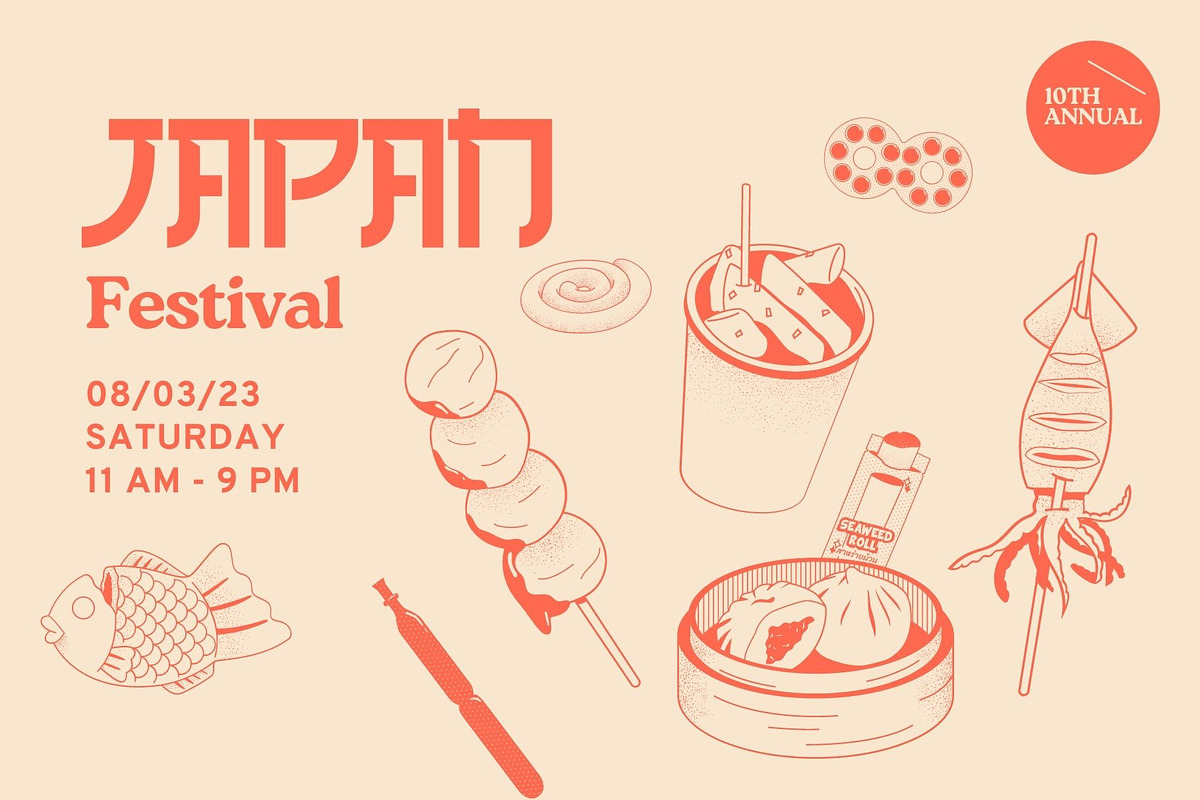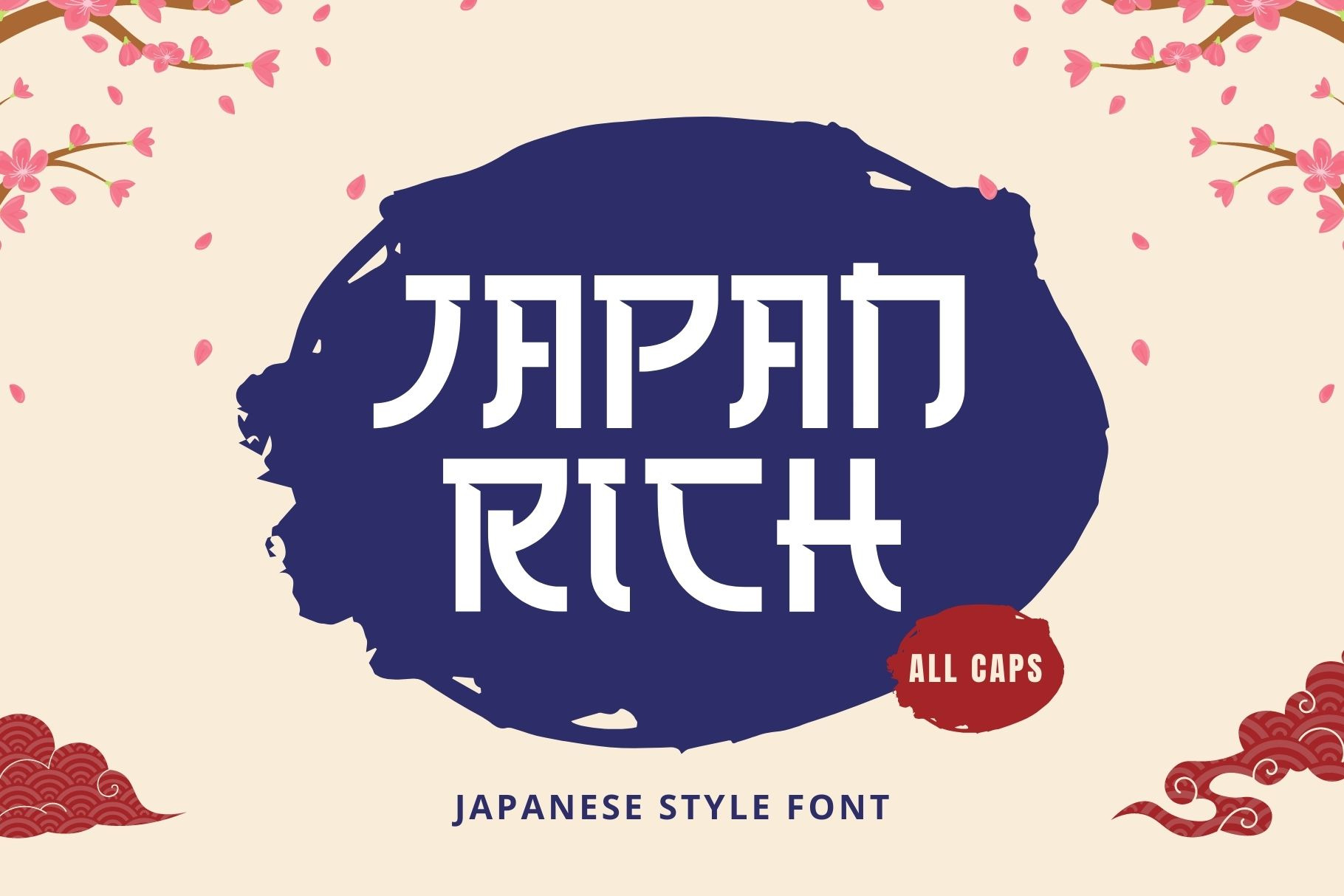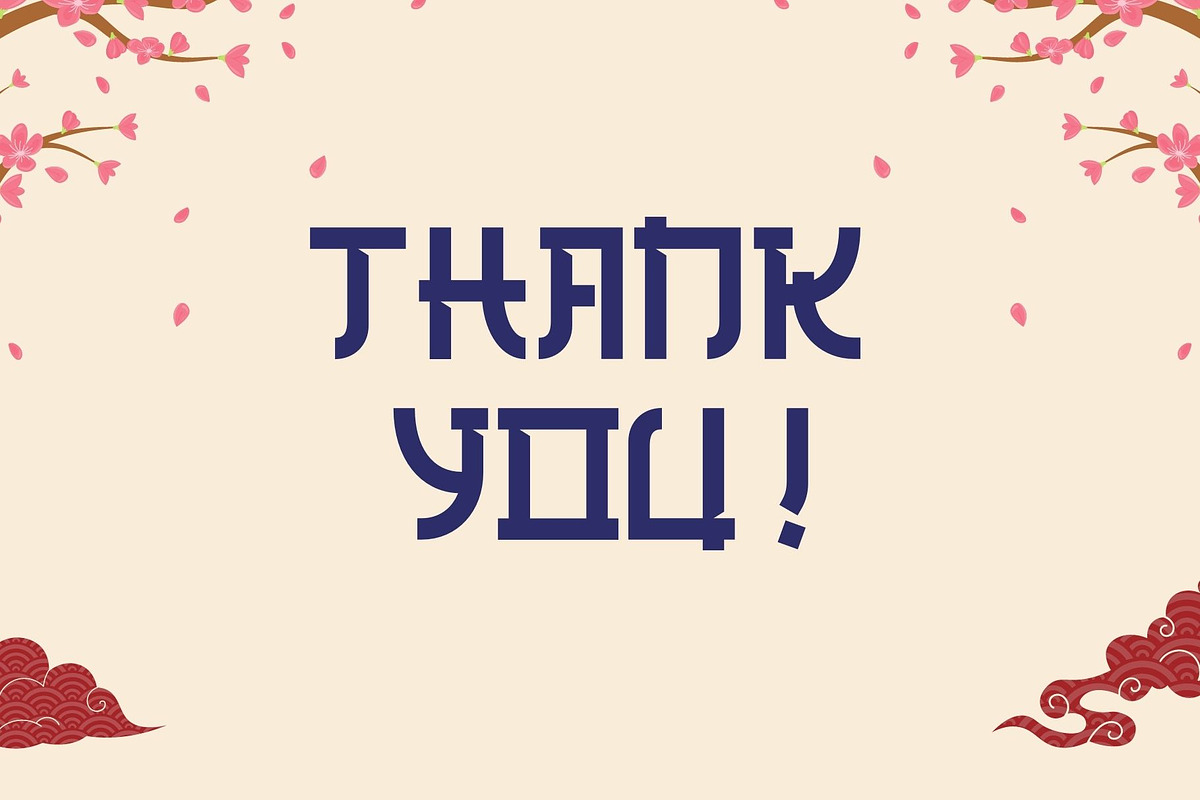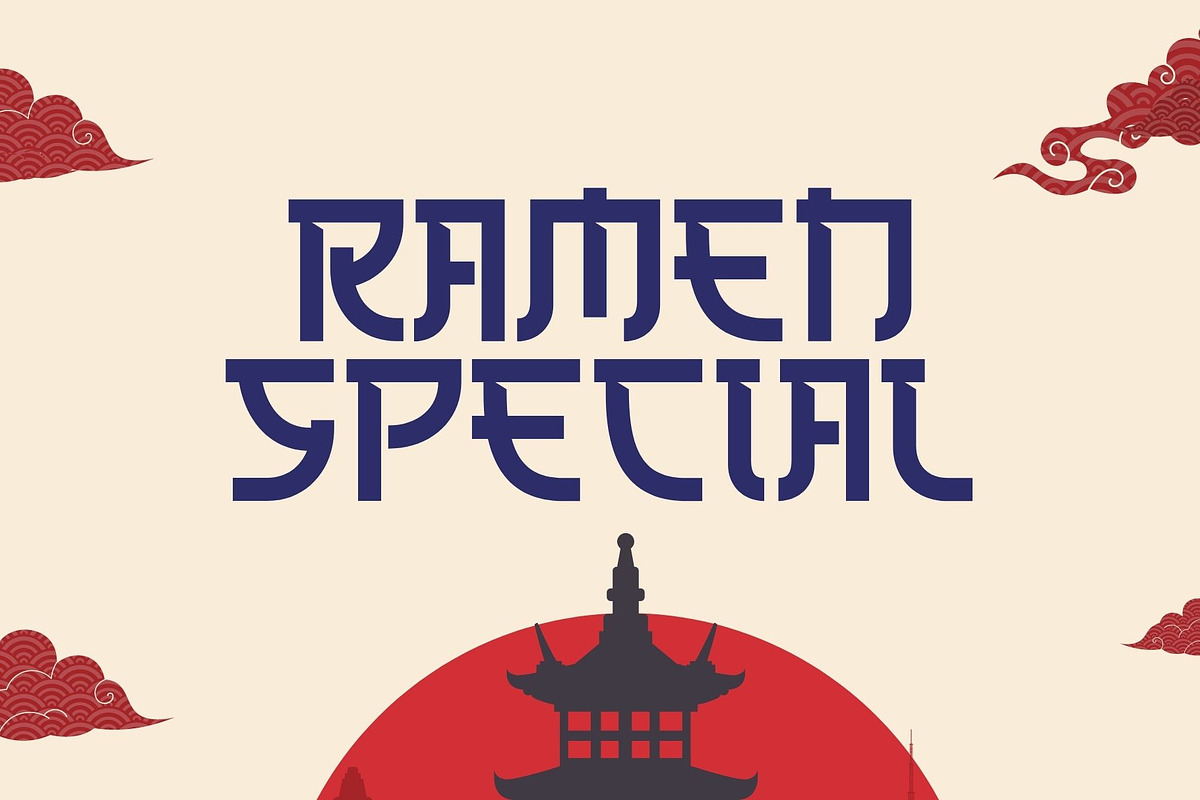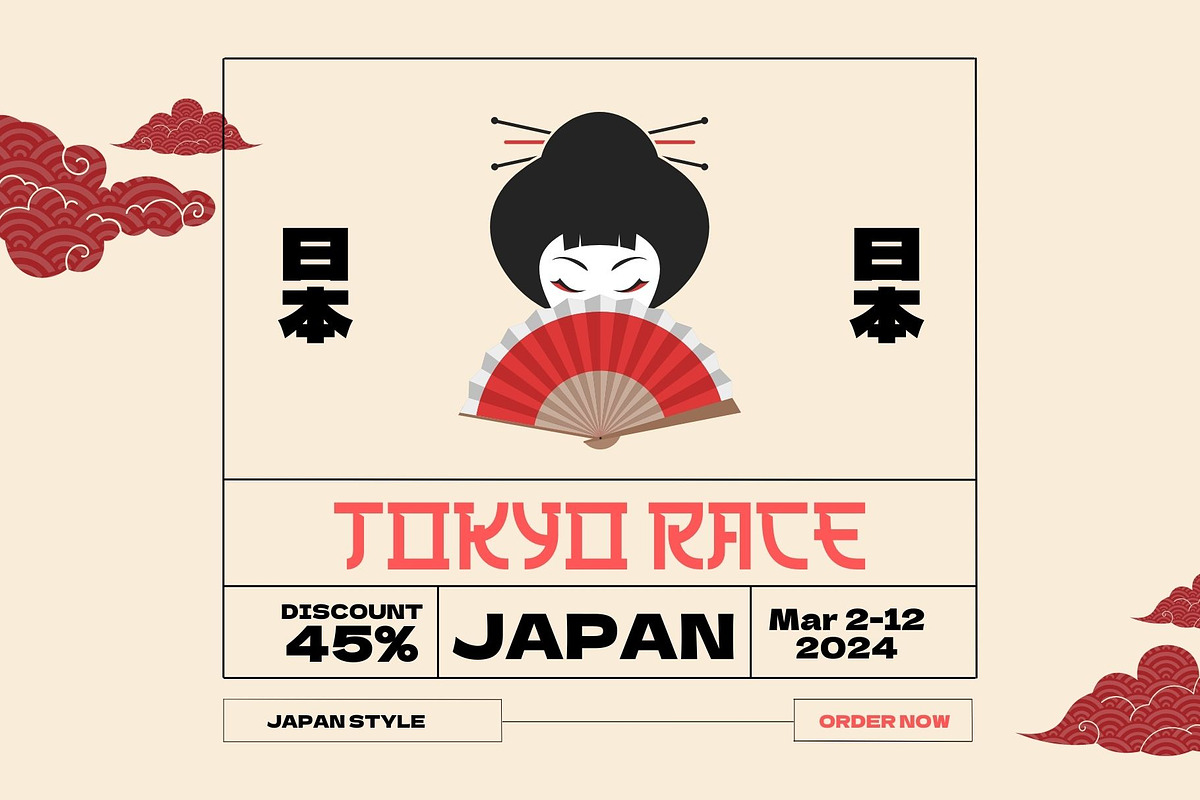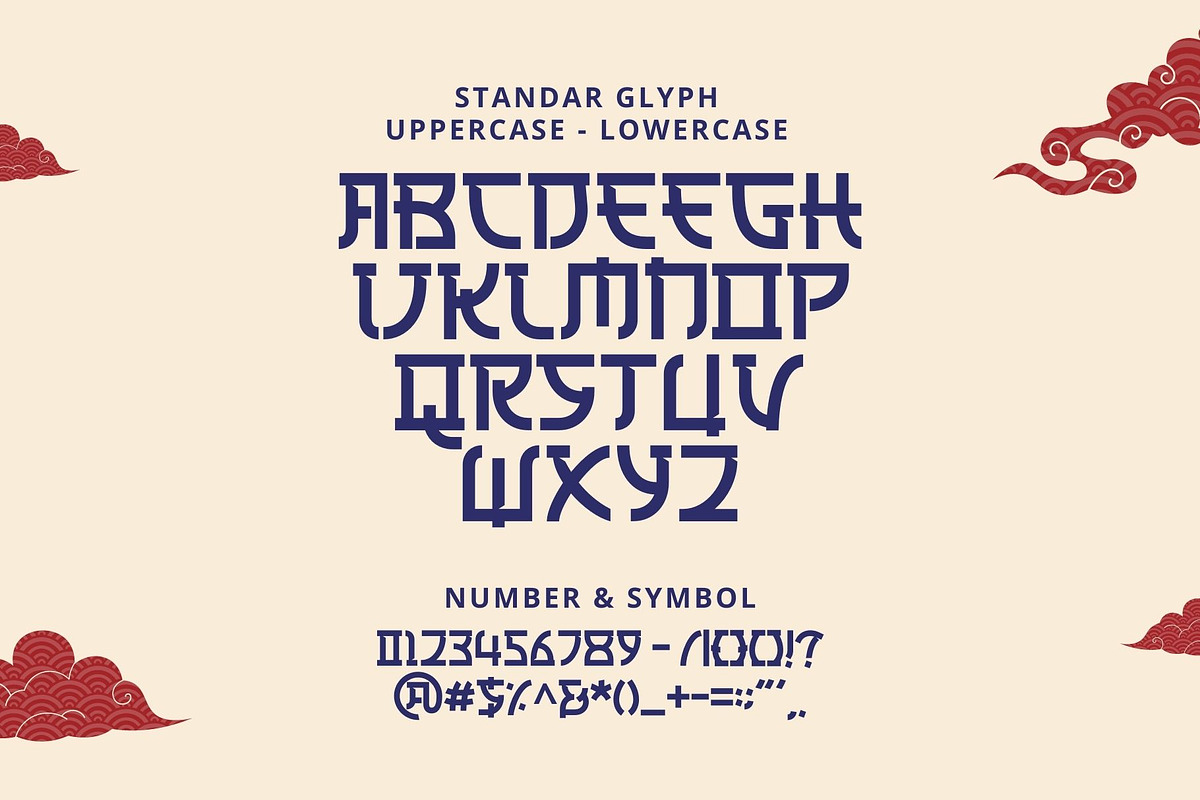
Japan Rich - Japanese Font
Introducing Japan Rich, Inspired by Japanese Kanji Typography. perfect for logos & branding, social media posts, advertisements & product designs.